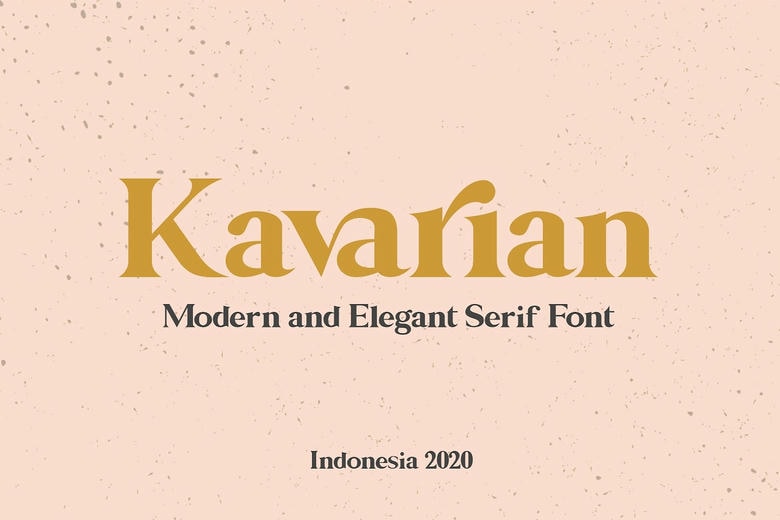
Kavarian Font
Kavarian is an elegant and distinct serif font. It can easily be matched to an incredibly large set of projects, so add it to your creative ideas and notice how it makes them stand out! The free version provides all uppercase and lowercase letters and a few special characters too.
Kavarian Serif Font